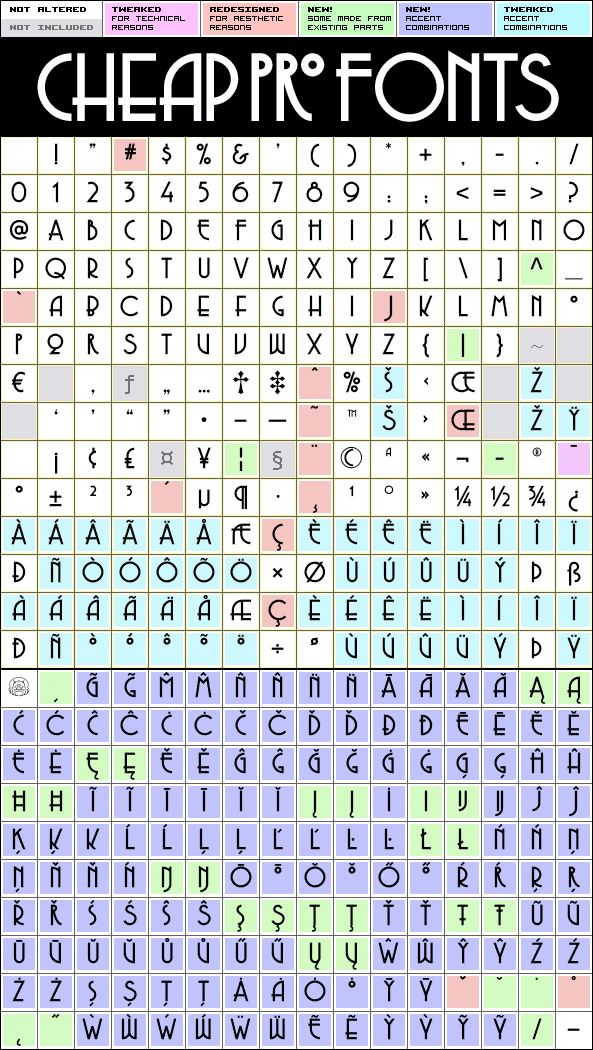
Another typical Art Deco font from Nick Curtis. Uppercase only, but with alternate letterforms in the lowercase positions. I have completely redesigned all the diacritics (which were way too flimsy for this robust design ;) before expanding the character set in the usual fashion. Nick Curtis says: "Back in the Olden Days of Graphic Design B.C. (before computers), type freaks used to wait in anxious anticipation for each new release of the Letraset catalog. The inspiration for this font, Premiere Lightline, was one such release, and probably help spur my interest in Deco designs. The original font was VERY light indeed, suitable only for use in large sizes. My version is beefier, and includes an entire lower case of alternate letterforms, making this (at least) two fonts in one. The name is the 40’s hep talk equivalent of “Cool!”".
Copasetic NF Pro is a professionally reworked font that contains an extended character set for setting text in 65 languages requiring more than the basic A-Z!